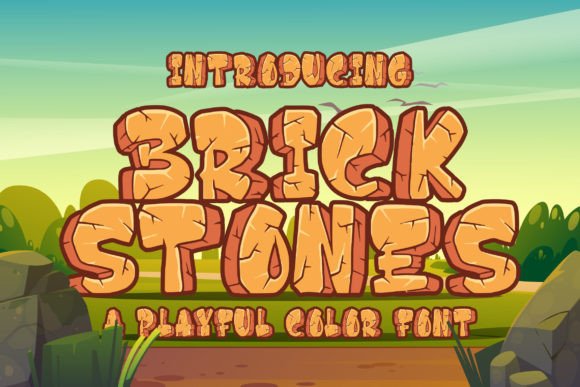
Are you tired of the same old boring fonts? Do you want to add a touch of creativity and playfulness to your designs? Look no further than Brick Stones Font, the perfect choice for anyone looking to make a statement with their typography.
Created by Blankids Studio, this colorful font is designed to inspire imagination and endless fun. Its unique SVG format allows for vibrant and dynamic lettering that will truly make your designs stand out from the crowd.
Whether you're designing book covers, posters, packaging, merchandise, or even a quirky logotype, Brick Stones has got you covered. Its high level of aesthetics ensures that your creations will be visually stunning and captivating to your audience.
So why wait? Take your designs to the next level with Brick Stones Font. Its playful and eye-catching nature will instantly captivate your audience and make your creations truly memorable. Whether you're designing funny t-shirts or adding a touch of whimsy to your branding, this font is the perfect choice.